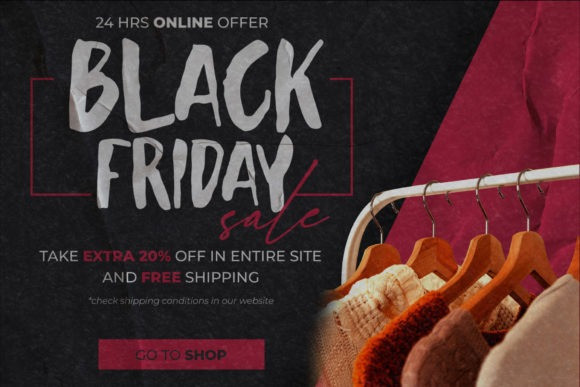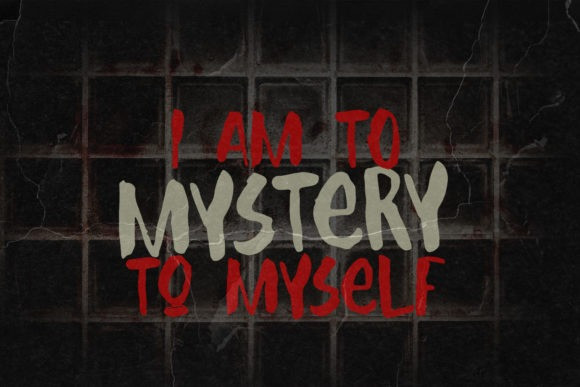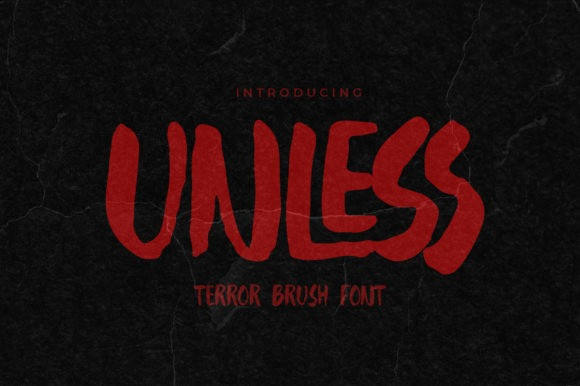
Unless Font
Unless Font is a brushed, graffiti-styled display font that has a street art vibe. This font is suitable for designs such as t-shirts, sportswear, logos, advertisements, clothing, and more.